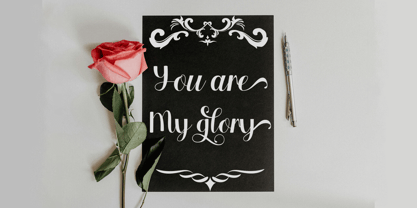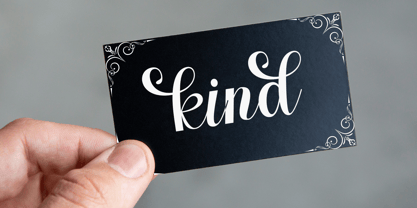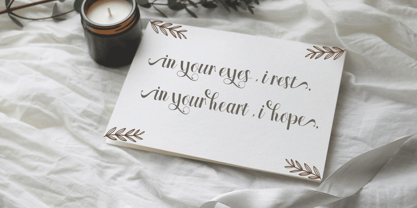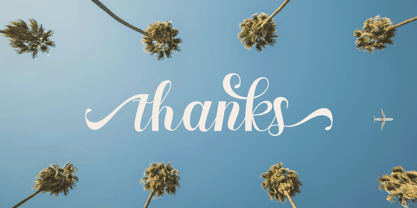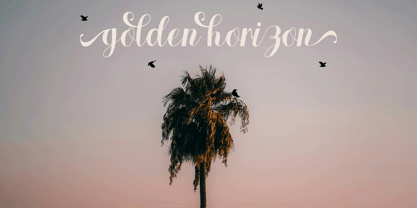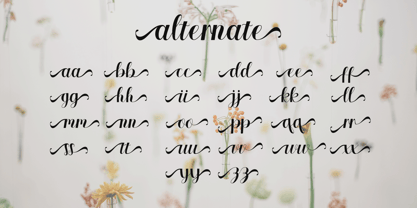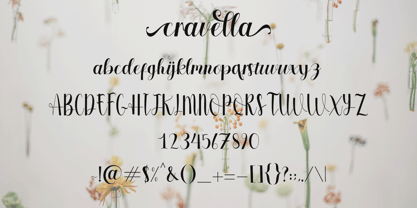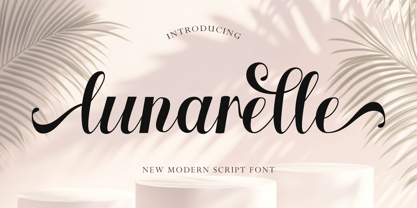
Lunarelle
Die Schriftfamilie Lunarelle wurde von Rizki Ramadhan entworfen und von Trick Type Style veröffentlicht. Lunarelle enthält 1 Stile. Mehr über diese Familie
Lunarelle is a stunning modern calligraphy font with flowing lines and smooth curves Inspired by elegant handwriting it's perfect for projects that need a romantic artistic or personal touch
Ideal for wedding designs quotes branding and more Lunarelle combines beauty and readability in one stylish package making every design feel warm and expressive.